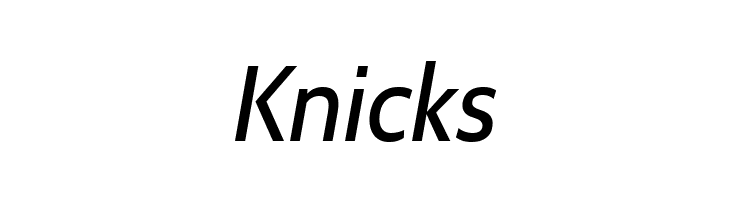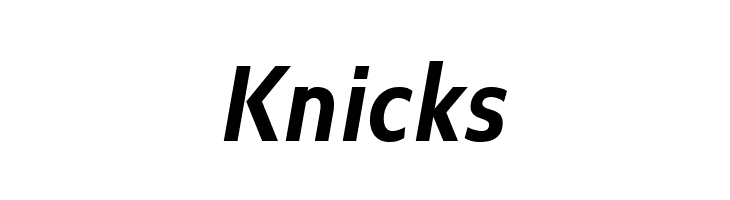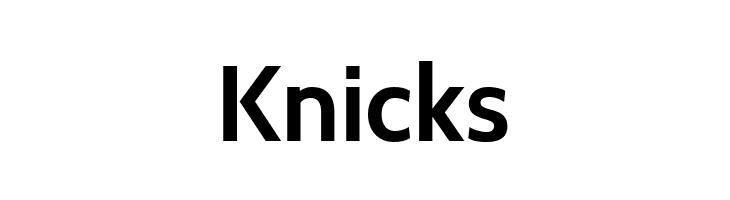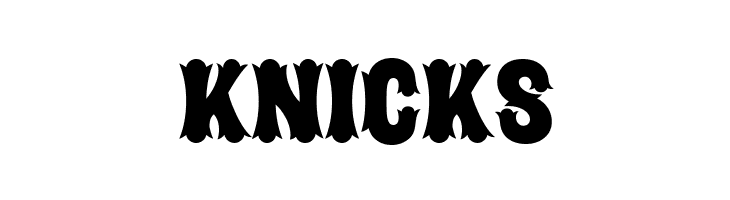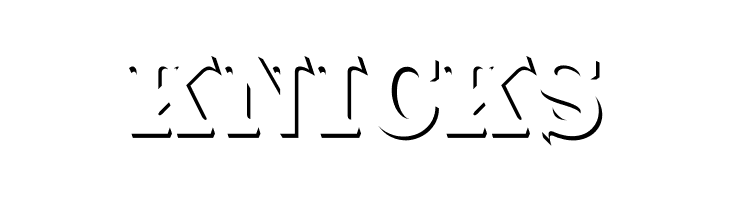
A bold, chiseled font with a three-dimensional stone-carved look.
A chiseled, stone-like font with a bold, decorative style.
A bold, stencil-style font with a modern and industrial look.
A playful, handwritten font with rounded, consistent strokes and a casual feel.
A modern script font with flowing lines and rounded edges.
A bold, decorative font with a vintage, western-inspired style.
A bold, modern sans-serif font with clean lines and strong readability.
A modern, italic sans-serif font with clean lines and excellent readability.
A modern, clean sans-serif typeface with uniform stroke widths and excellent readability.